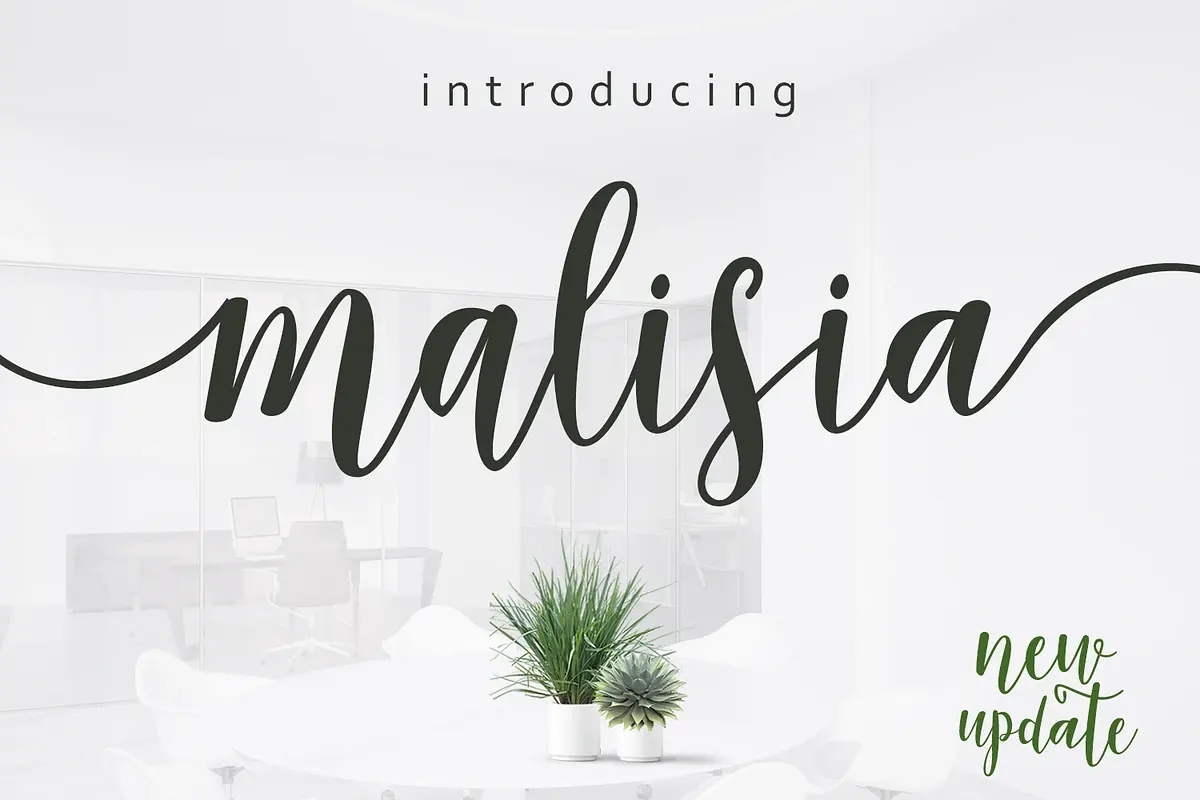
Malisia Script Free Download
Malisia Script Font Free Download is a graceful and romantic typeface that captures the elegance of modern calligraphy. With its flowing lines, stylish swashes, and handwritten charm, this script font is perfect for wedding invitations, feminine branding, social media graphics, and signature-style logos.
Malisia Script Font Free Download brings a touch of sophistication and softness to any design. It includes beautiful alternates and ligatures that allow you to customize your text with a unique, handcrafted look. Whether you're designing for print or digital, Malisia adds warmth, beauty, and a personal feel.